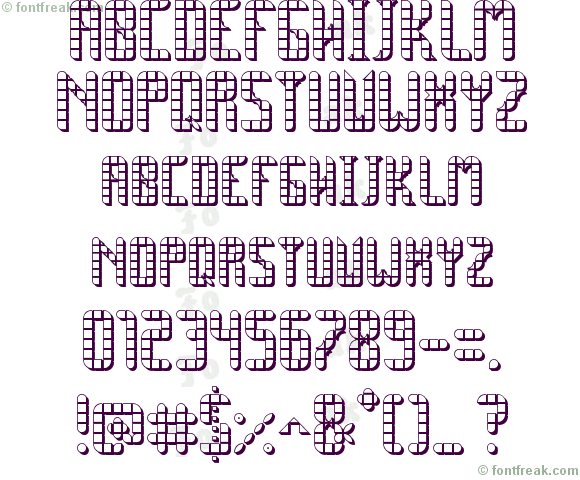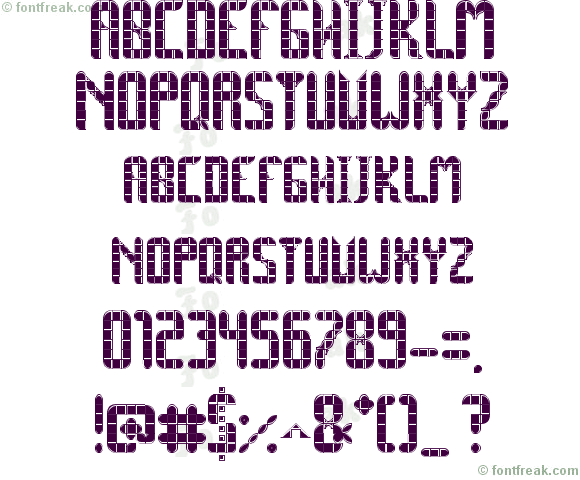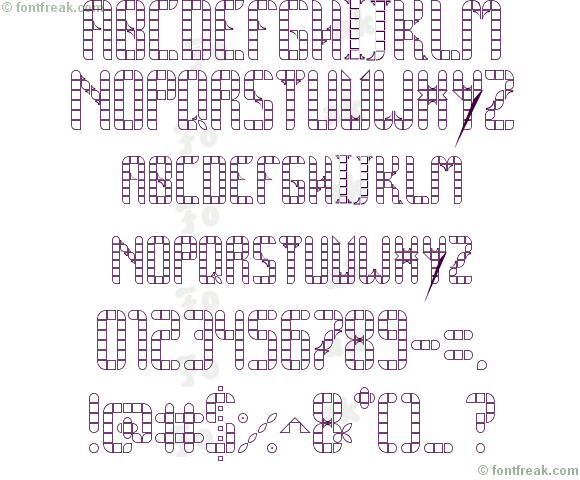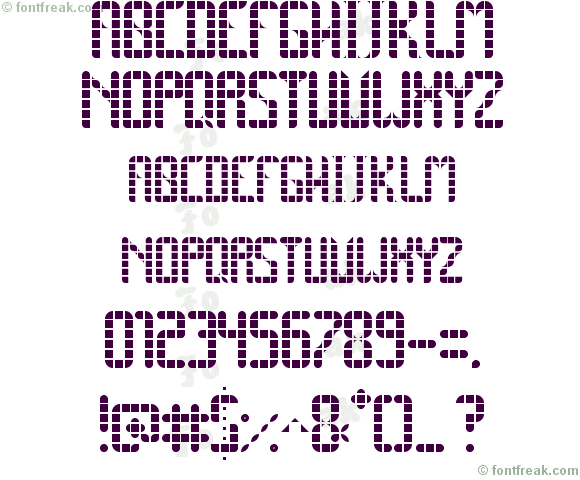
SPACE PEZ College
SPACE PEZ Regular
SPACE PEZ Outline
SPACE PEZ 3D
The Space Pez font by Nils Von Blanc is a captivating display typeface that combines a playful aesthetic with a futuristic edge, making it an excellent choice for a variety of creative projects. This font is categorized as a decorative typeface, characterized by its bold, rounded letterforms that evoke a sense of whimsy and adventure. The strokes exhibit a consistent weight throughout, giving it a uniform appearance that enhances readability while maintaining a light-hearted vibe. The spacing between characters is thoughtfully designed, allowing for clear communication whether used in large headlines or smaller text.
Space Pez is perfect for several use cases, including vibrant movie posters aimed at younger audiences, engaging website headers for gaming or tech blogs, eye-catching event flyers for sci-fi conventions, and playful branding for children's products. Its unique visual style attracts the attention of graphic designers, small business owners, and content creators looking to infuse their projects with a touch of fun and innovation.
What sets Space Pez apart is its ability to blend nostalgia with modern design elements, reminiscent of classic video games and retro toys. Its playful character creates an inviting atmosphere, making it a standout choice for projects that aim to engage and delight audiences. For those looking to elevate their designs, the Space Pez font free download offers an opportunity to explore creativity without limitations.